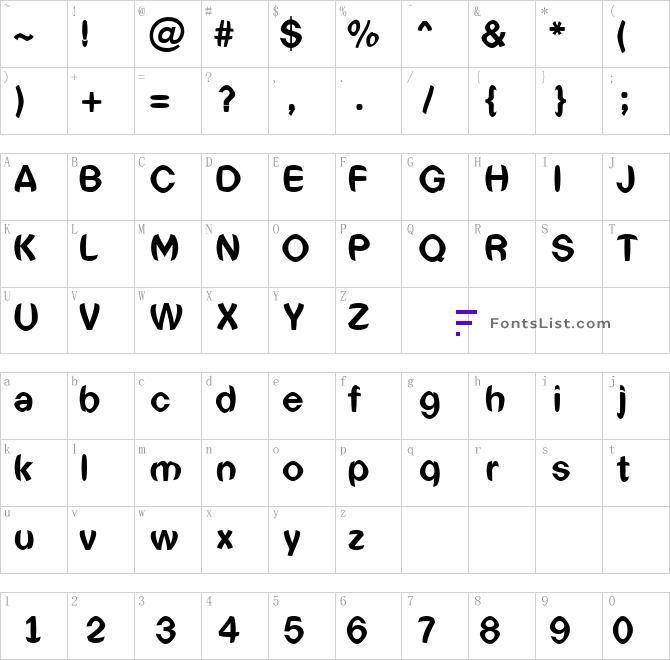
- Font Name:a_ReportSansBrl
a_ReportSansBrl-Bold.ttf is a very beautiful artistic font, a_ReportSansBrl-Bold.ttf is widely used in the design and printing of various books and pictures,a_ReportSansBrl-Bold.ttf has a strong visual impact,a_ReportSansBrl-Bold.ttf is a commonly used font in newspapers, magazines and books, and is used in posters, e-commerce Poster design, store design, logo design, font design and other fields.a_ReportSansBrl-Bold.